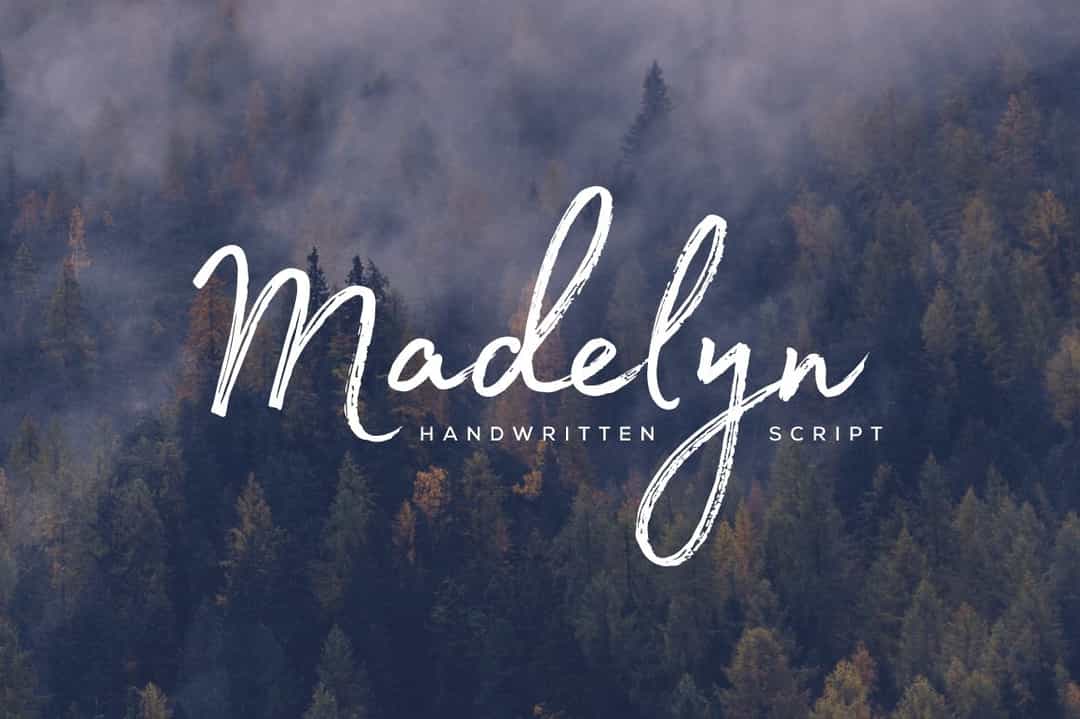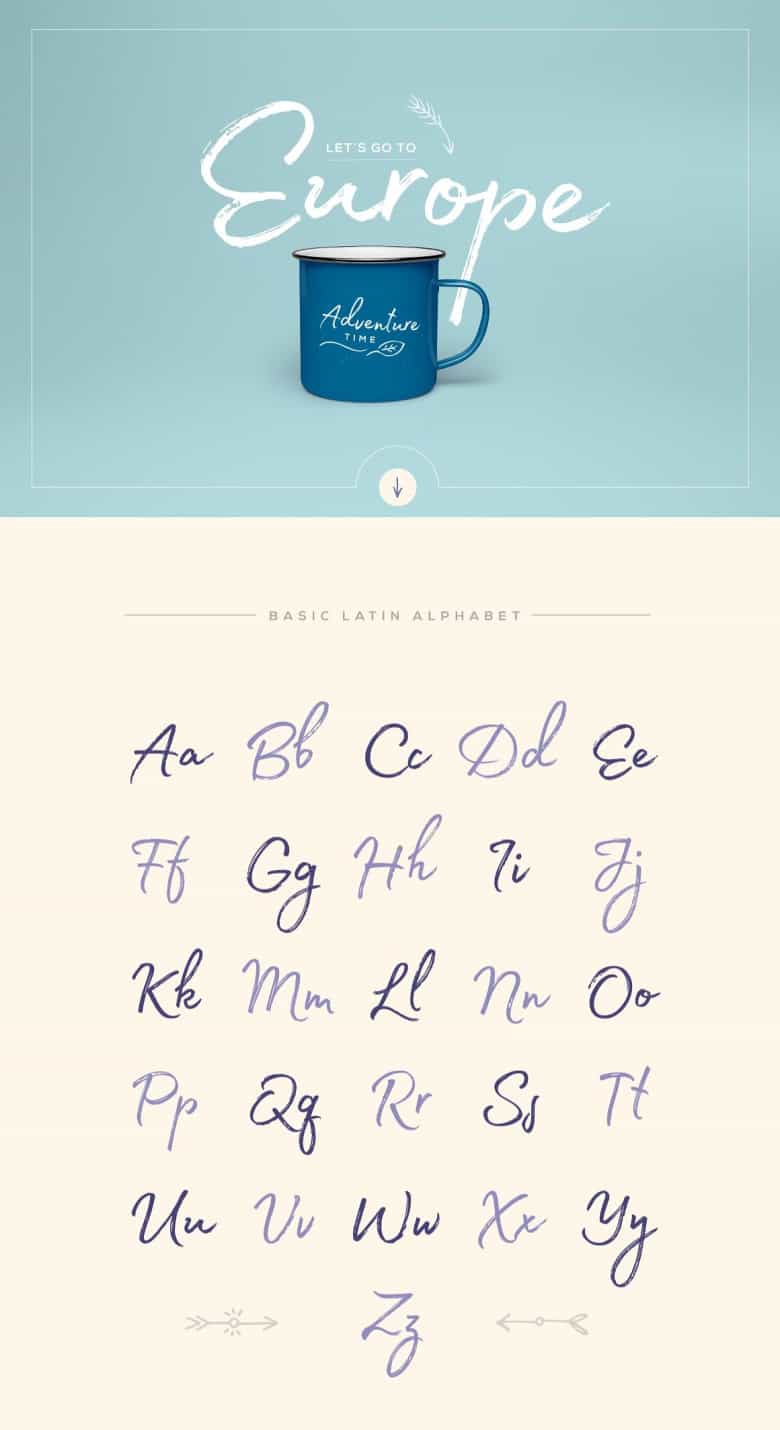
Madelyn is a handwritten brush script font inspired by genuine handwriting. It is natural and easy to read, making it the ideal way to demonstrate individuality and flair. Written using a calligraphy pen with simple dry strokes for a distinctive style; featuring lowercase characters with pleasing low x-height as well as ascenders, descenders of higher ascenders, descenders as well as numerals, punctuation symbols and punctuation marks.